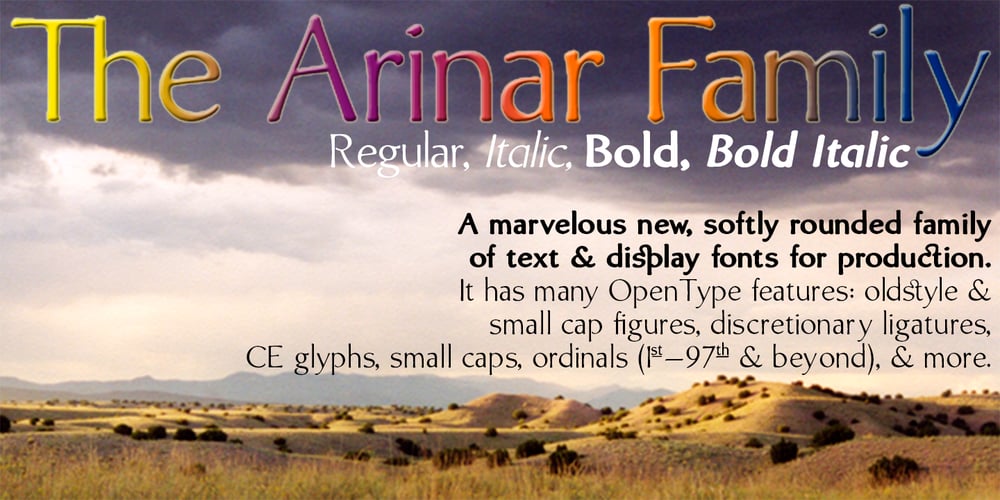
Arinar Font Family was designed by David Bergsland and published by Hackberry Font Foundry. Arinar contains 4 styles and family package options. Arinar is a well modulated, rounded, humanist sans serif font family based on Brinar. A distant ancestor the basic letterforms is Minister (a Dutch bible font of the 19th century) through my first font, Diaconia. There are many OpenType features with over 600 characters: Caps, lower case, small caps, ligatures, discretionary ligatures, swashes, small cap figures, old style figures, numerators, denominators, accent characters (including CE), ordinal numbers (1st-infinity: lining and oldstyle), and so on. It is designed for text use in body copy.